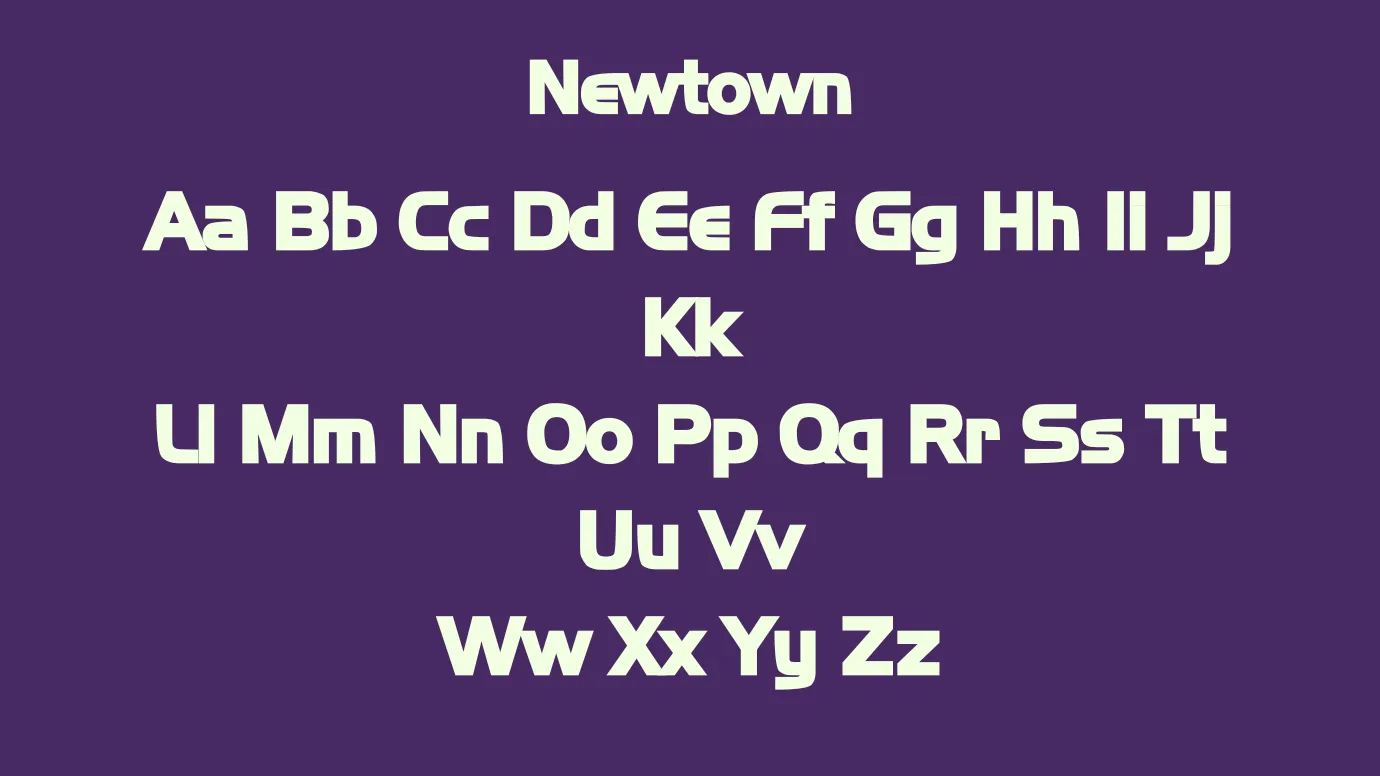
Newtown Font is a very attractive sans-serif typeface. The look of this font is elegant and clean. It has high readability and you can make even small size projects easily. It was designed by Roger White in 1994.
It gives a more graceful look to your projects when you use it for pairing it with other fonts such as aksara font. It is a versatile choice, ideal for branding, editorial design, and professional projects.
NameNewtown Font
DesignerRoger White
Date Released1994